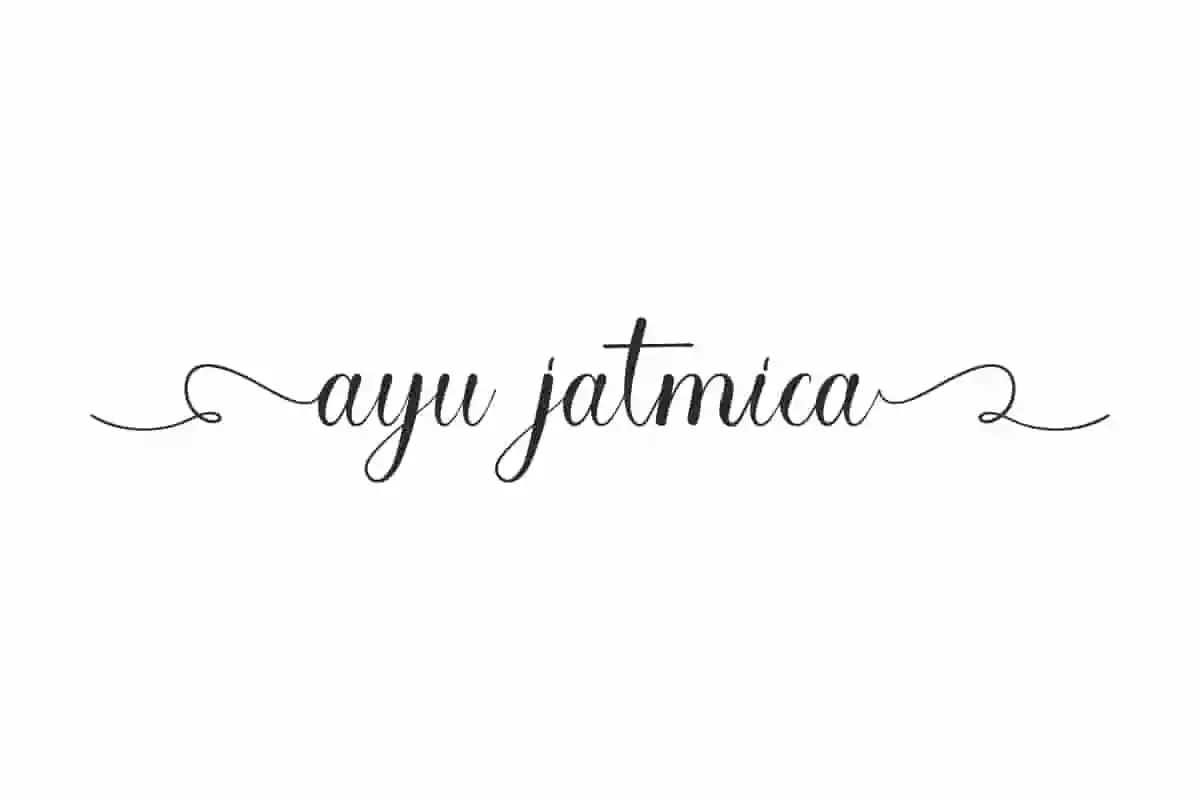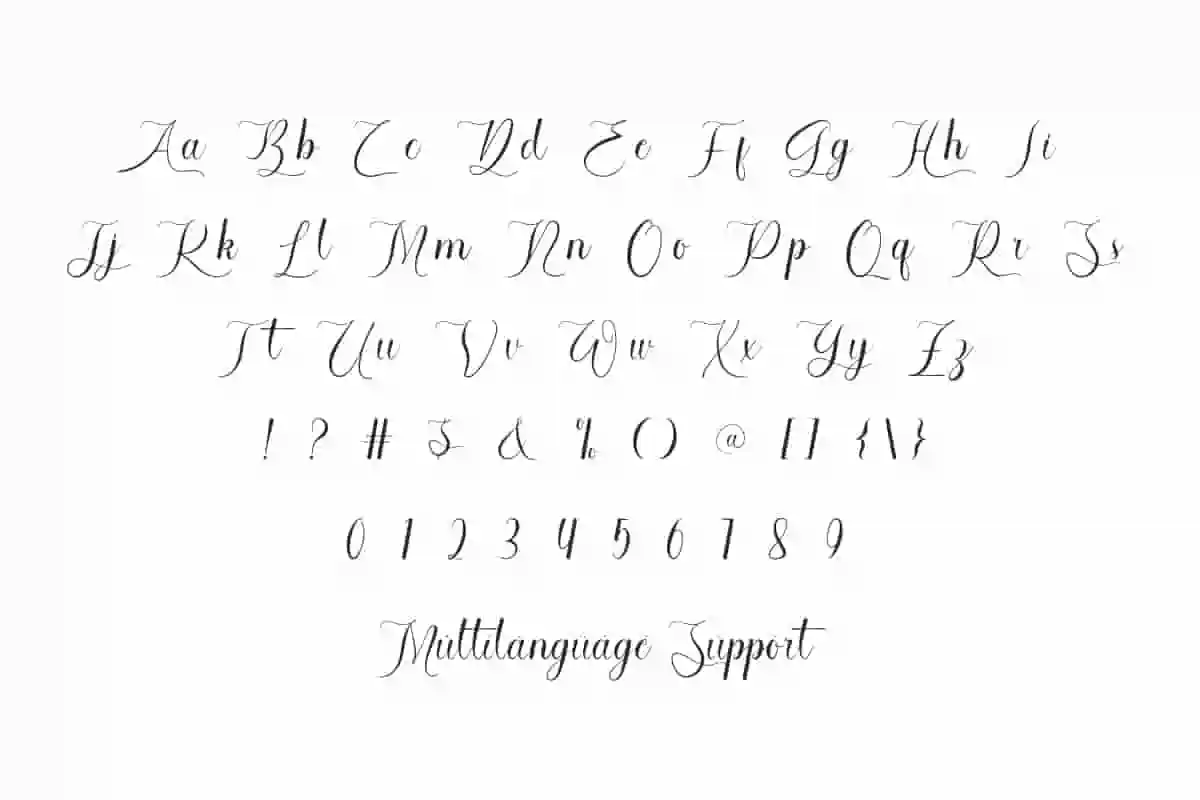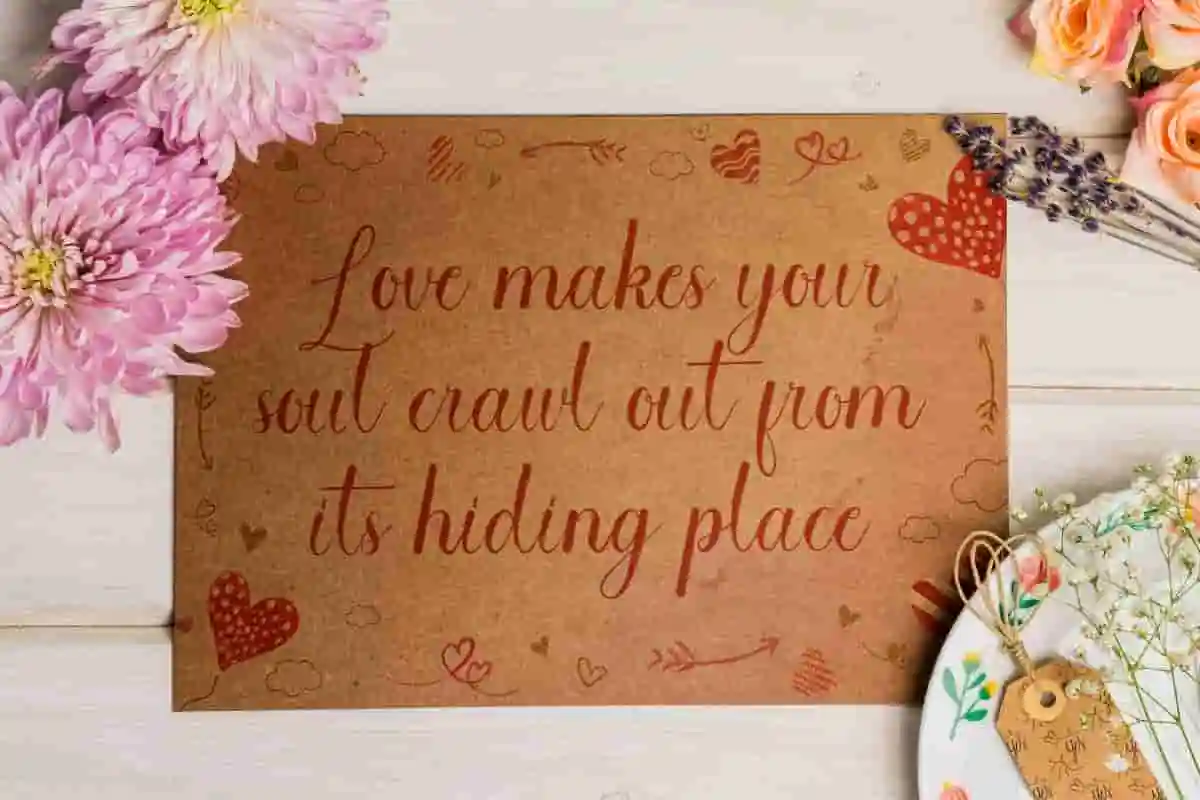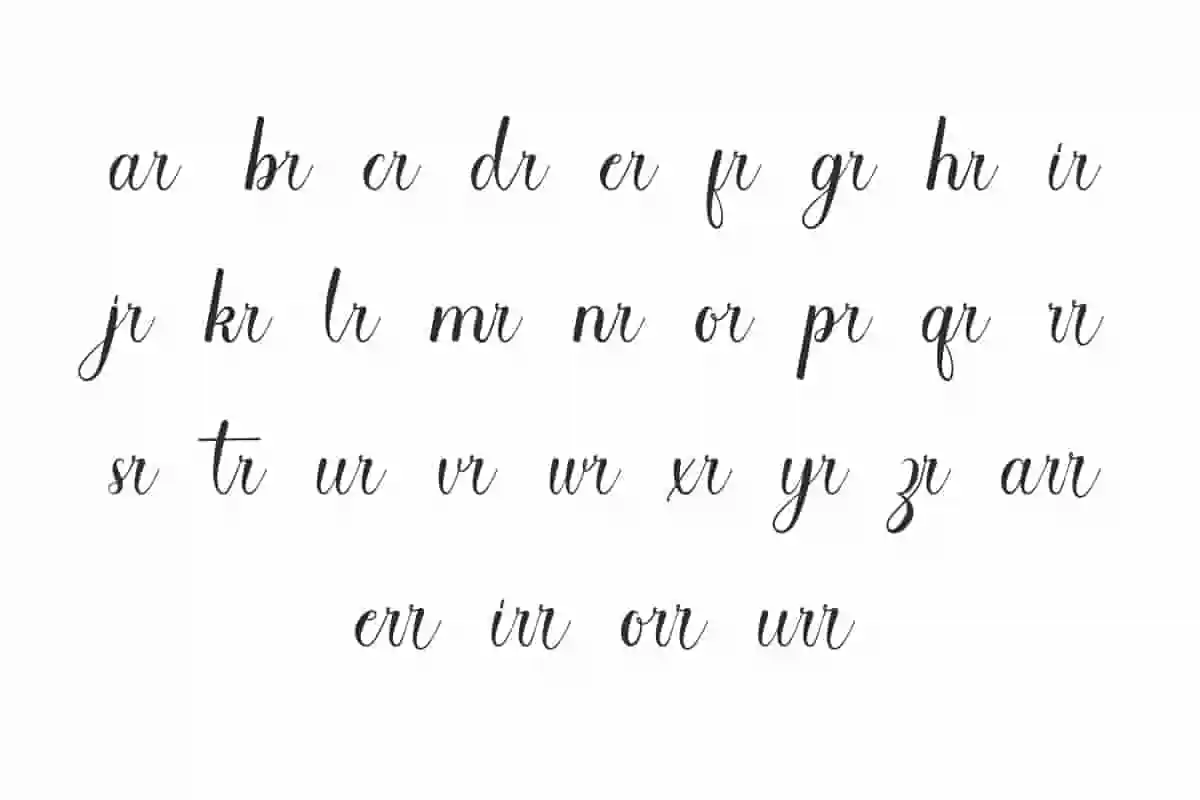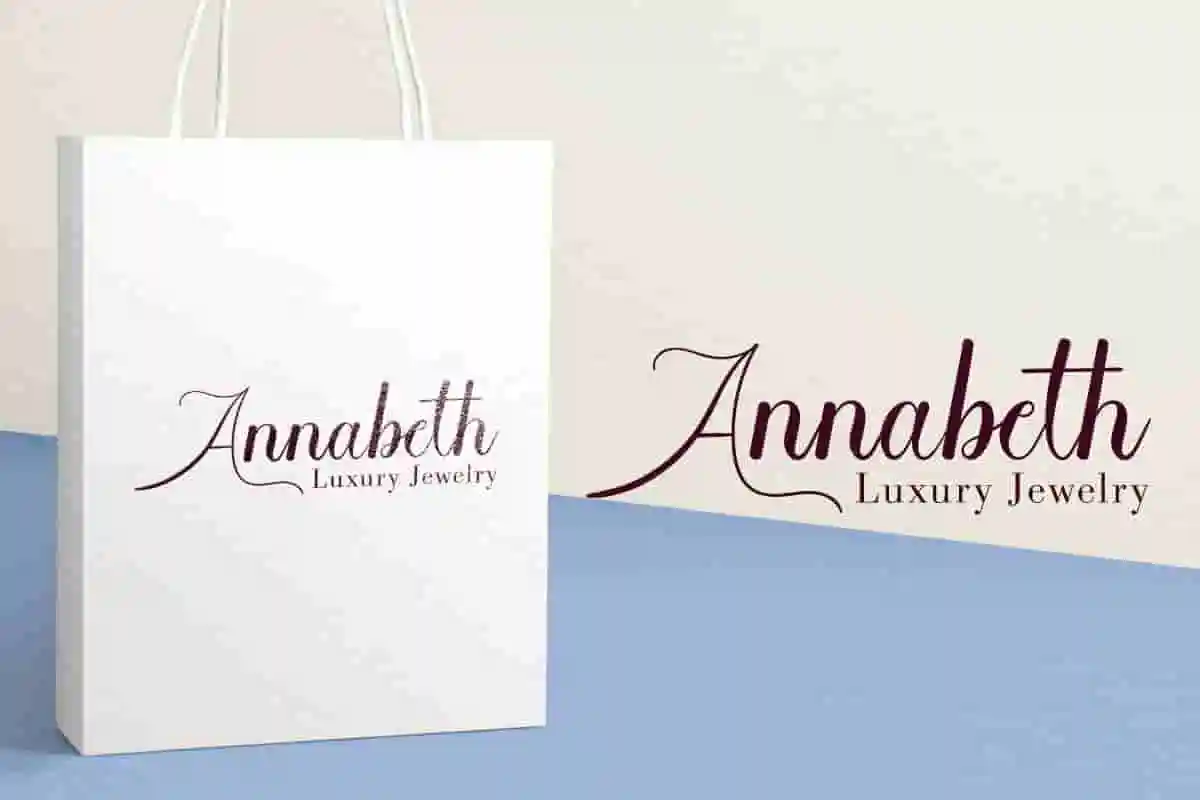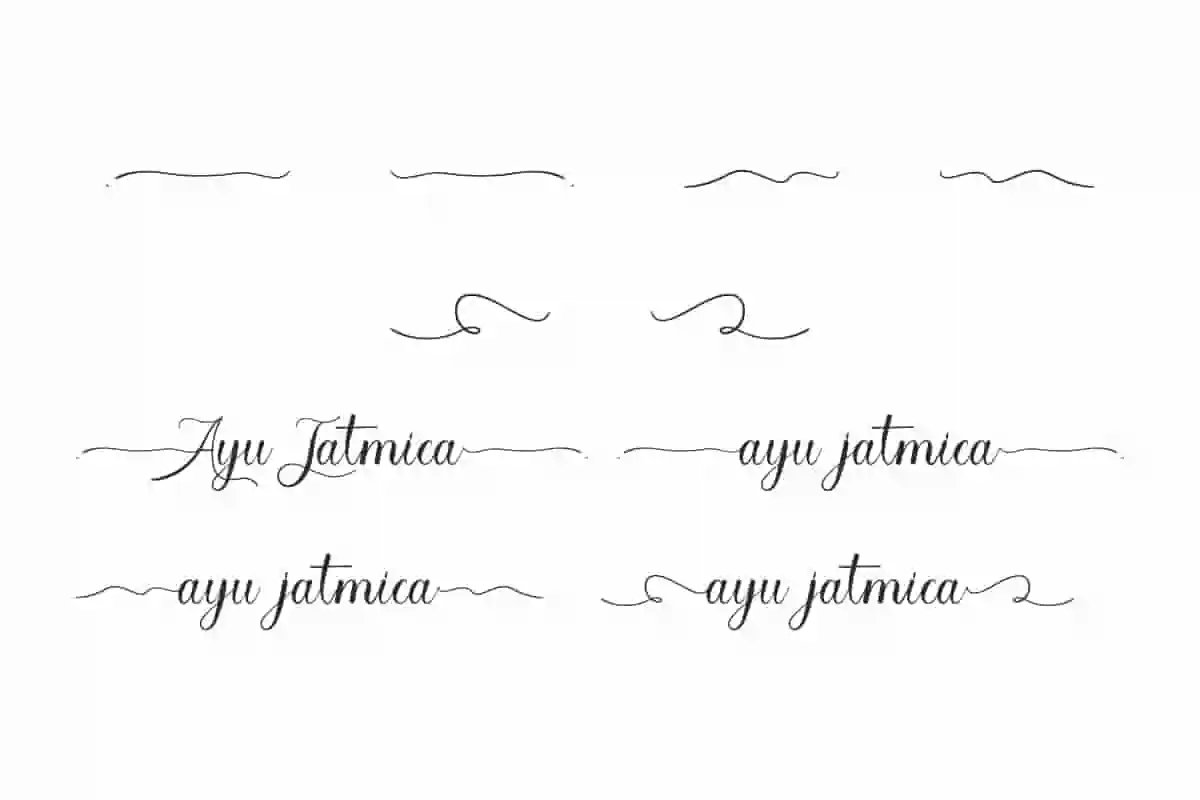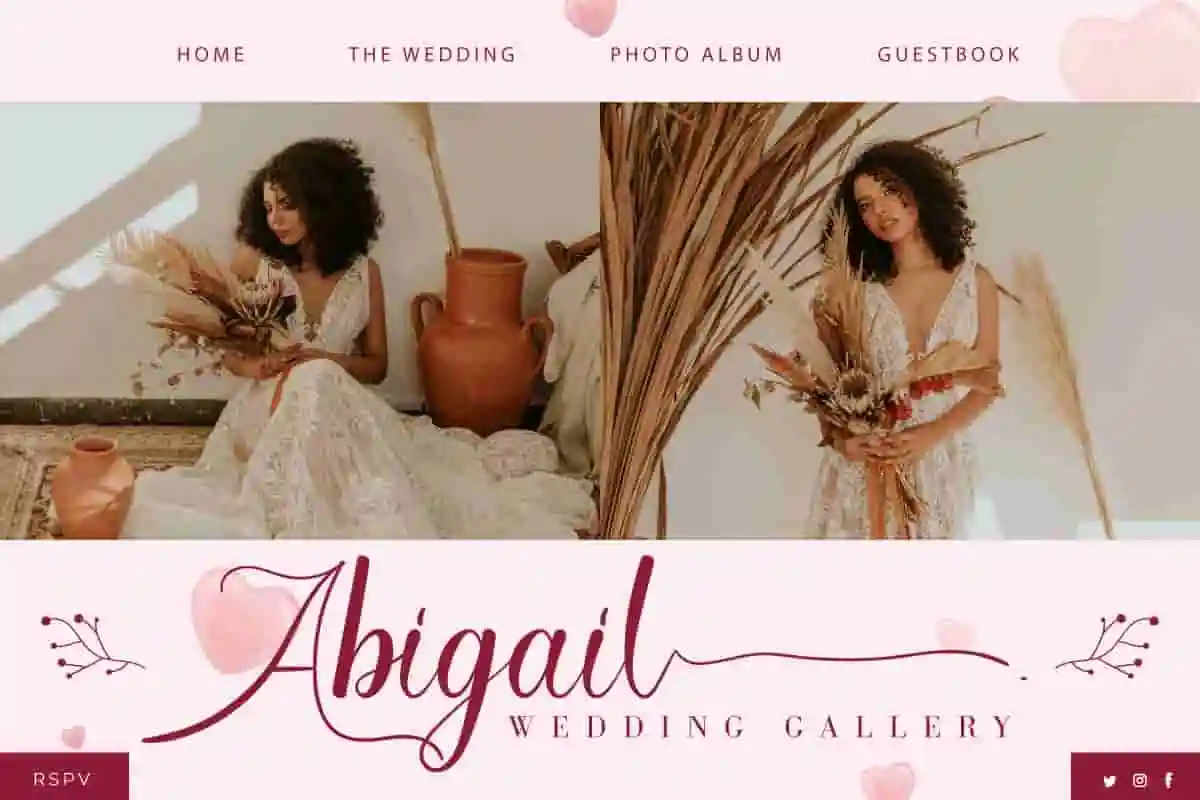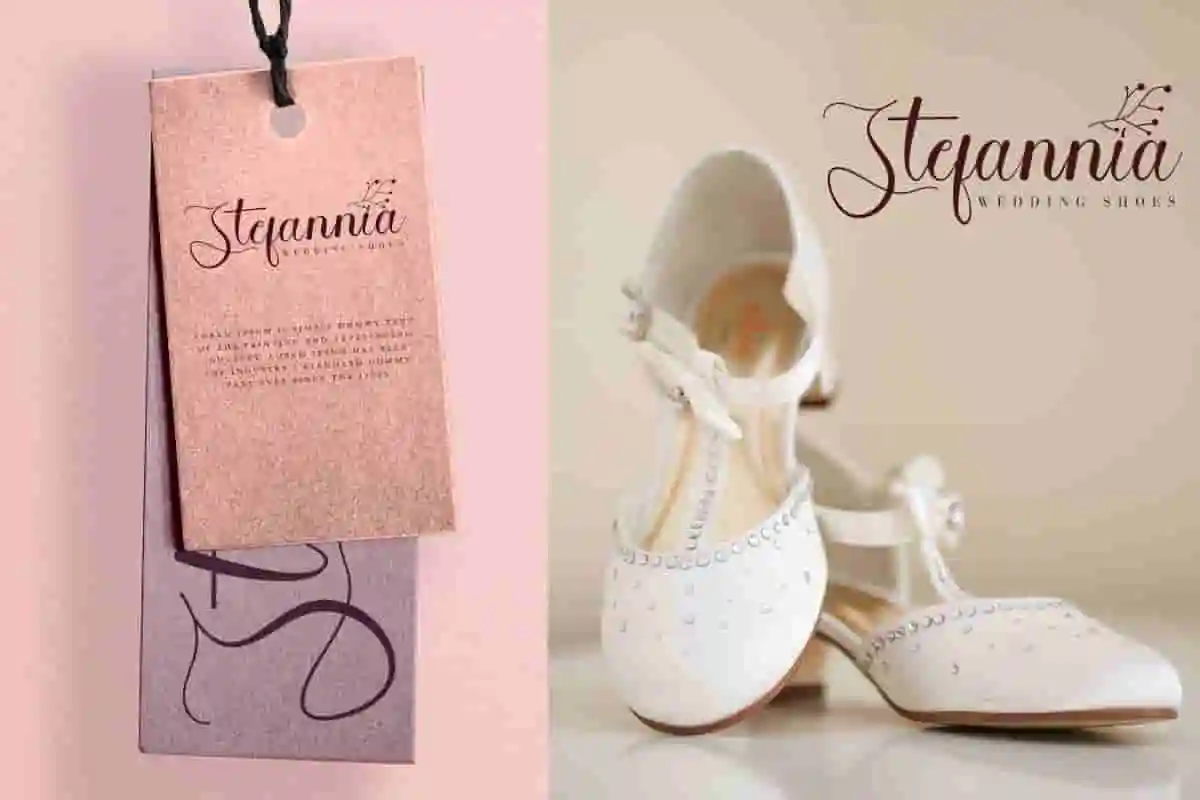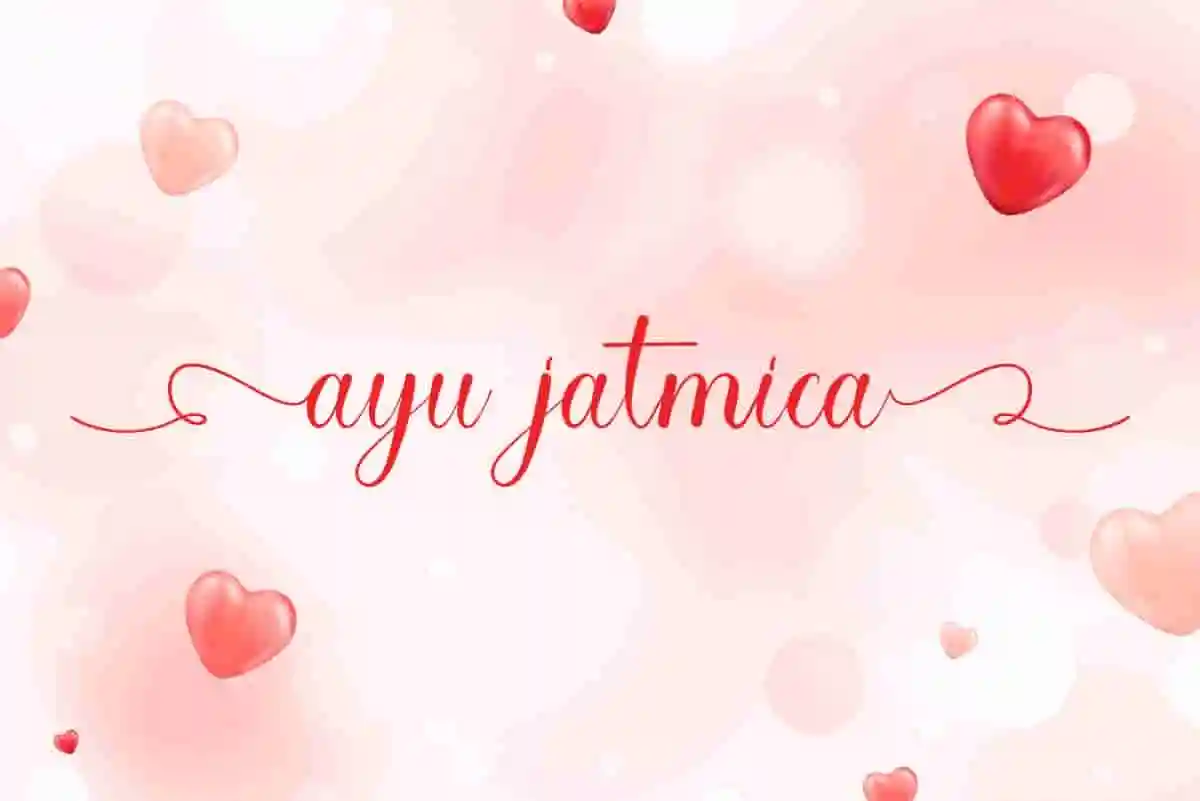
Ayu Jatmica Font is graceful and romantic calligraphy with beautiful thin lines that form each letter shape. It’s perfect for expressing any words your heart desires.
Ayu Jatmica Font is a light charming calligraphy font made in a modern style. This beautiful typography is for those who need elegance and style for their designs, perfect for blogs, body text, greeting card, invitations, label tag, logos, packaging product, quotes, stationery, save the date cards, website title, wrapping paper, and feminine branding.
Ayu Jatmica Font includes a complete set of Basic Uppercase and Lowercase Characters, Numbers, Punctuation Marks and Symbols. It also includes a set of Ligatures and Swoosh that will add artistic value to whatever your business will be, such as apparel, bridal boutique, cosmetic, fashion, florist, handicraft, jewelry, romance novel skincare, writer, wedding organizer, and many more.
Ayu Jatmica Font available with multilingual languages support, also has ligature and swoosh character options that you can choose and use to make it stand out. It will be ready to use on a Windows or Mac machine with a simple installation. Works well in Adobe products (Adobe Illustrator, Adobe InDesign, Adobe Photoshop) CorelDraw, and even work on Microsoft Word. This handwritten font can be used in any program that supports open type fonts.